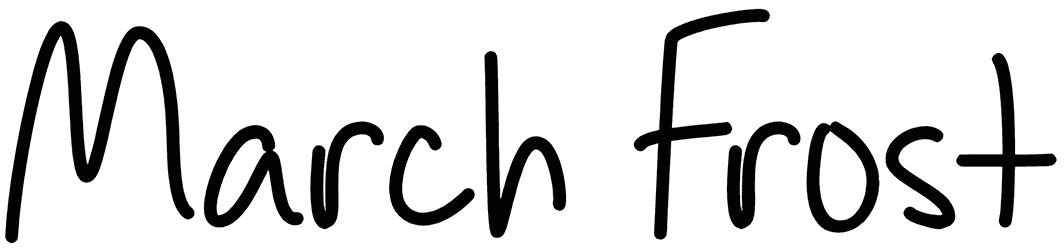
March Frost Font
When there’s a delightful tone missing from your text, March Frost can help you make up for that without a hitch. You can always let your art take a casual approach with a handwritten font, but this one can do a lot more than that.
It produces just the right kind of modern theme that your spring flyers and food packaging designs need. Besides, wherever you want to keep things friendly, feel free to count on this nice script font.
March Frost is a natural handwritten typeface that was carefully handcrafted to add a unique and whimsical touch to your designs. Use it to create stand-out logos and banners for your website or Etsy Shop, lovely greeting cards, social media graphics, and anything else you can imagine.